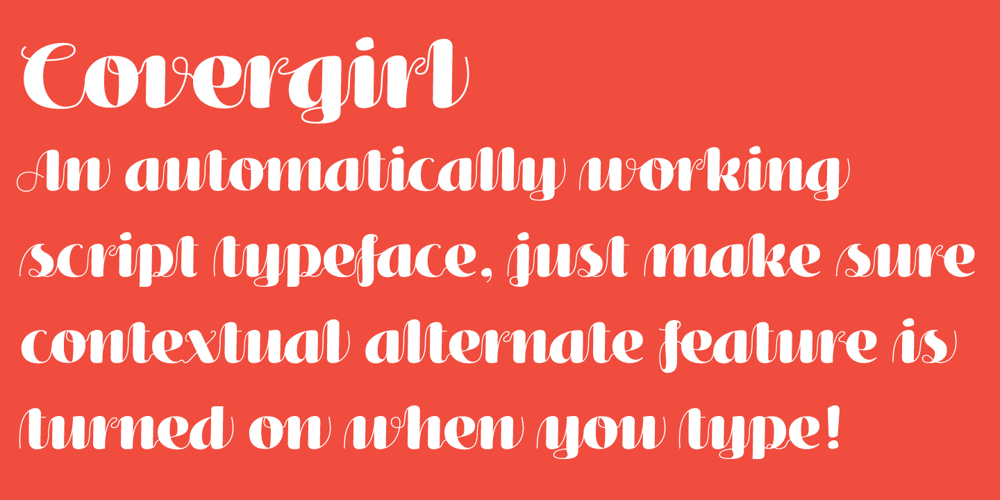
Covergirl Font Family was designed by Trine Rask and published by Trine Rask. Covergirl contains 1 styles and family package options. Warning: works with contextual alternate-feature, which is not showing here. Covergirl is a script typeface that works all by itself. It has a very high contrast, but works also in smaller sizes. It is a display typeface. Covergirl is based on handwriting. The basic shapes are transformed to a very high contrast strict form and the hairline runs through the words in an amusing lively way that simulates the writing by hand. Its scandinavian designed handwriting, decorated, but also very minimalistic. While writing the letters will be substituted by one of the variations of the letter, that will make sure that the letters connect well. When writing in only UPPERCASE a much more simple letter shape will substitute the default.